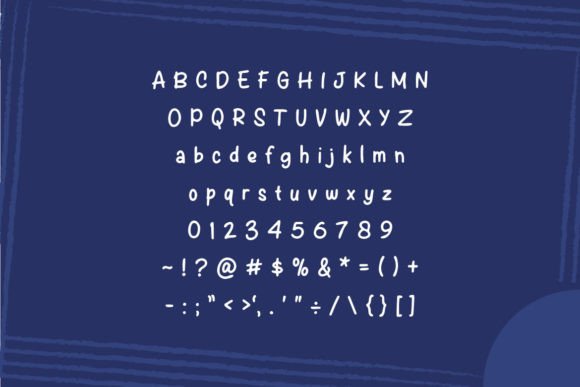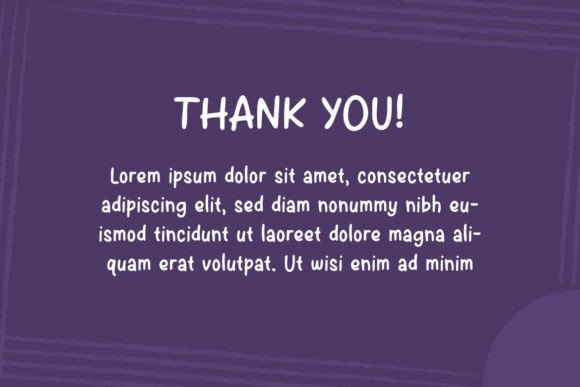
Jeanuary Font
About Jeanuary Font
**Jeanuary: The Cute and Friendly Handwritten Display Font for Your Creative Projects**
Introducing Jeanuary, a delightful handwritten display font that adds a touch of charm and friendliness to any creative endeavor. With its unique style and versatile application, Jeanuary is an asset to your font library, capable of enhancing a wide range of design projects.
**Endearing Aesthetics:**
Jeanuary’s endearing aesthetics make it an ideal choice for adding character and warmth to your designs. Its handwritten charm exudes a friendly and approachable vibe that instantly draws people in. Whether you’re working on invitations, social media posts, logos, or more, Jeanuary adds that personal touch.
**Versatile Utility:**
One of Jeanuary’s standout features is its versatility. This font seamlessly adapts to various design projects, making it a valuable tool for any creative. Whether you’re crafting wedding invitations, greeting cards, website headers, or branding materials, Jeanuary brings its unique flair to each application.
**Playful Elegance:**
Jeanuary strikes a harmonious balance between playfulness and elegance. Its playful characters dance along the baseline, adding a touch of whimsy to your text. Simultaneously, its elegant strokes maintain a sense of refinement, making it suitable for a wide range of creative purposes.
**Engage Your Audience:**
With Jeanuary, your designs become more engaging and relatable. It creates a visual connection between your message and your audience, enhancing the overall user experience. Whether you’re designing for print or digital, Jeanuary helps you connect on a personal level.
**Fuel Your Creativity:**
Jeanuary isn’t just a font; it’s a creative muse. It inspires you to explore new design possibilities, experiment with typography, and infuse your projects with character. With Jeanuary, creativity knows no bounds.
**Memorable Impressions:**
In a world where first impressions matter, Jeanuary helps you leave a lasting one. Its unique handwritten style sets your designs apart, making them memorable and distinctive. When you want to make a statement, Jeanuary is the font that ensures you’re heard.
**Elevate Your Designs with Jeanuary:**
In summary, Jeanuary is the cute and friendly handwritten display font that can enhance any creative project. Its endearing aesthetics, versatility, and playful elegance make it a valuable addition to your font arsenal. Whether you’re designing for personal or professional purposes, Jeanuary adds a dash of charm that sets your work apart from the ordinary.